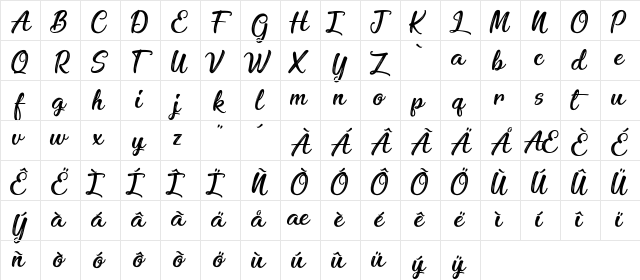
Enchanting Celebrations Regular
Design Context for Enchanting Celebrations Typeface
Enchanting Celebrations is a composed and adaptable typeface that performs quietly and consistently across a wide range of design contexts.
Pro Tip: Use Enchanting Celebrations in both headline and body roles to test its range before committing to a single application.